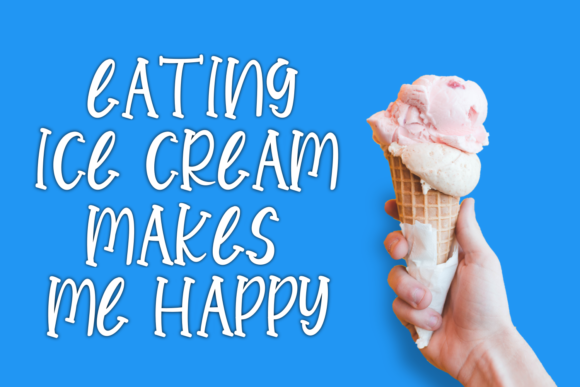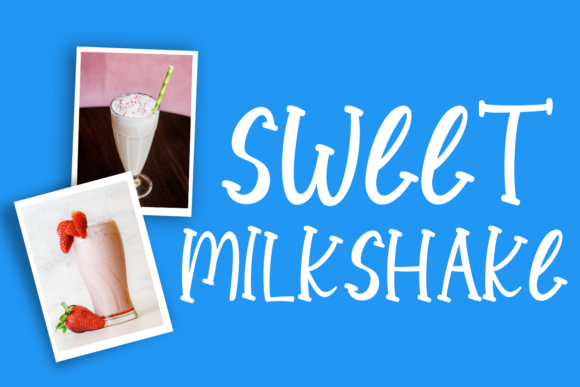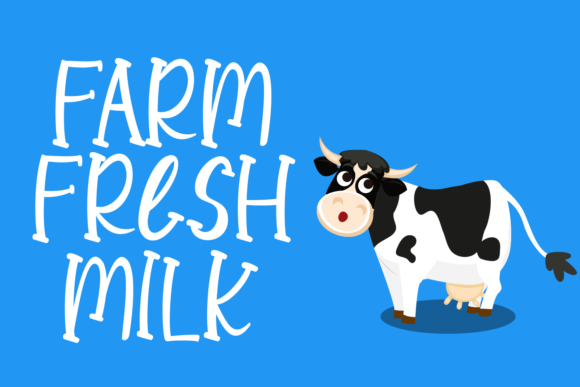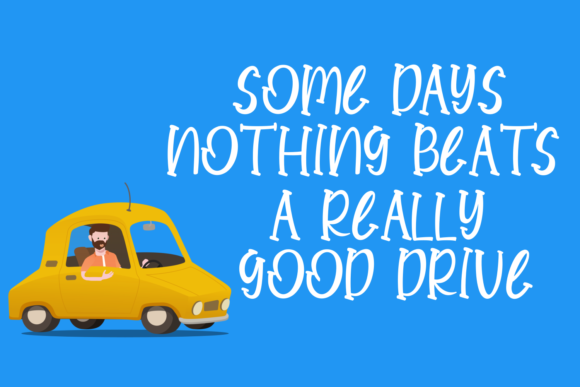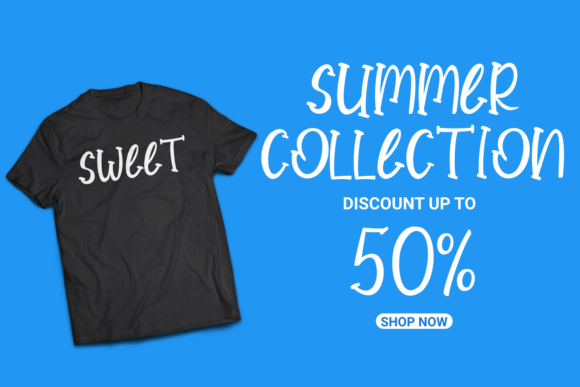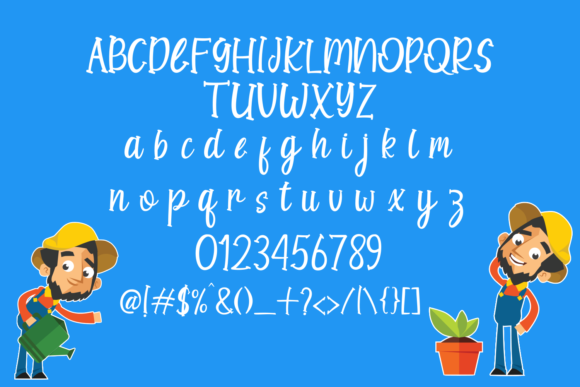
Introducing Farmer House Font: The Perfect Blend of Fun, Quirkiness, and Authenticity
Are you tired of using the same old fonts for your creative projects? Look no further than Farmer House Font, a charming handwritten font that embodies fun, quirkiness, and authenticity. This enchanting font is sure to turn any creative idea into a true standout, making it a must-have for designers, crafters, and anyone looking to add a personal touch to their work.
The Story Behind Farmer House Font
Farmer House Font is more than just a font – it’s a reflection of a carefree and playful spirit. Inspired by the rustic charm of rural life, this font captures the essence of a bygone era, while still feeling fresh and modern. Its unique blend of elegance and whimsy makes it perfect for a wide range of creative projects, from branding and packaging to invitations and crafts.
What Makes Farmer House Font So Special?
So, what sets Farmer House Font apart from other fonts? Here are just a few of its standout features:
- Handwritten with love: Farmer House Font is a genuine handwritten font, crafted with love and care to ensure that every letter and stroke is unique and full of character.
- Quirky and playful: This font is not afraid to have fun! Its quirky and playful personality shines through in every letter, making it perfect for projects that need a little extra personality.
- Authentic and rustic: Farmer House Font has a down-to-earth feel that’s perfect for projects that need a touch of rustic charm.
- Highly versatile: Whether you’re working on a branding project, a craft, or a social media graphic, Farmer House Font is the perfect choice.
Uses for Farmer House Font
So, what can you use Farmer House Font for? The possibilities are endless! Here are a few ideas to get you started:
- Branding and packaging: Use Farmer House Font to add a personal touch to your brand’s packaging and marketing materials.
- Invitations and events: Create beautiful, one-of-a-kind invitations and event materials with Farmer House Font.
- Crafts and DIY projects: Add a touch of personality to your crafts and DIY projects with this charming font.
- Social media graphics: Use Farmer House Font to create eye-catching social media graphics that stand out from the crowd.
Tips for Using Farmer House Font
Here are a few tips for getting the most out of Farmer House Font:
- Experiment with colors: Farmer House Font looks great in a variety of colors, so don’t be afraid to experiment and find the perfect hue for your project.
- Mix and match: Combine Farmer House Font with other fonts to create a unique and eye-catching look.
- Play with sizes: Use Farmer House Font in a variety of sizes to add visual interest to your project.
Farmer House Font is a truly unique and special font that’s sure to bring a touch of fun, quirkiness, and authenticity to any creative project. Whether you’re a designer, crafter, or simply someone who loves to get creative, this enchanting handwritten font is a must-have. So why wait? Download Farmer House Font today and start turning your creative ideas into standouts!